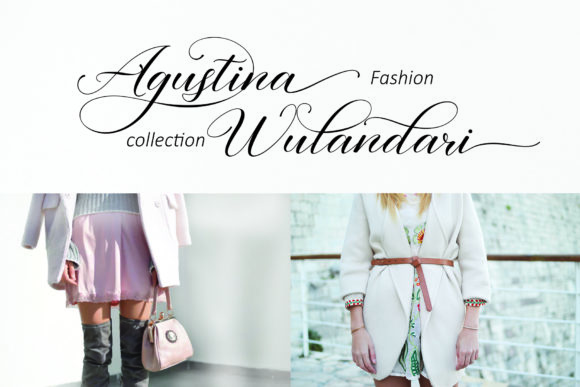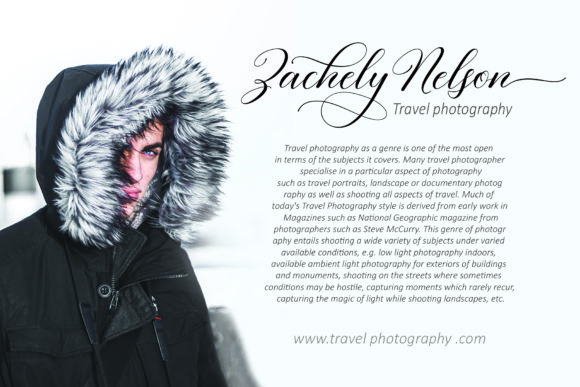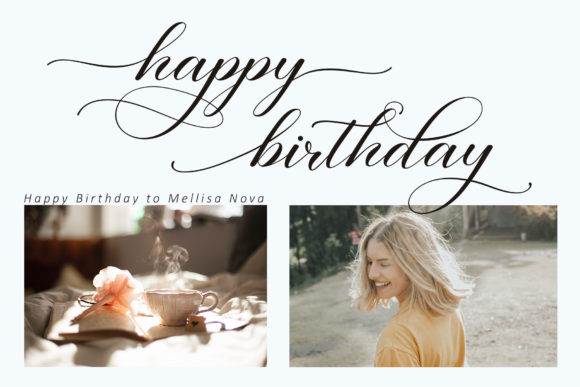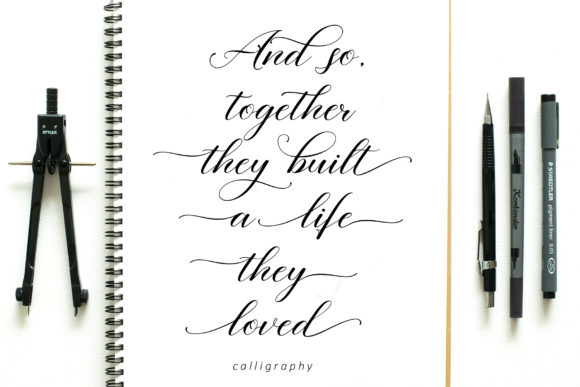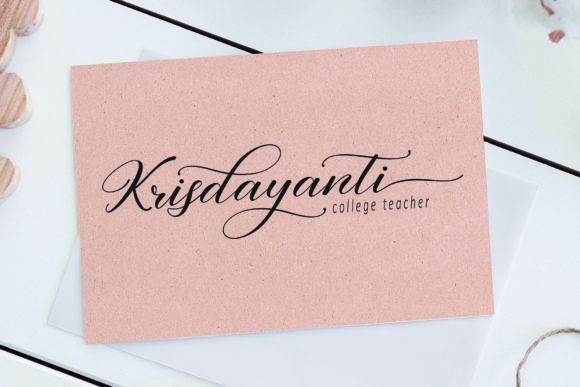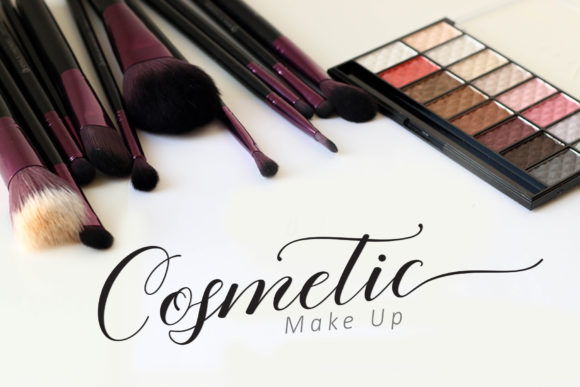
Introduction to Eliyamoli Font
Eliyamoli is a stylish and bold script font with amazing swashes.
It will take any craft idea to the next level .
Key Features of Eliyamoli Font
Why Choose Eliyamoli Font?
Eliyamoli Font offers exceptional quality and versatility, making it a valuable addition to your design toolkit. Whether you’re creating for personal projects or commercial use, Eliyamoli Font delivers professional results.